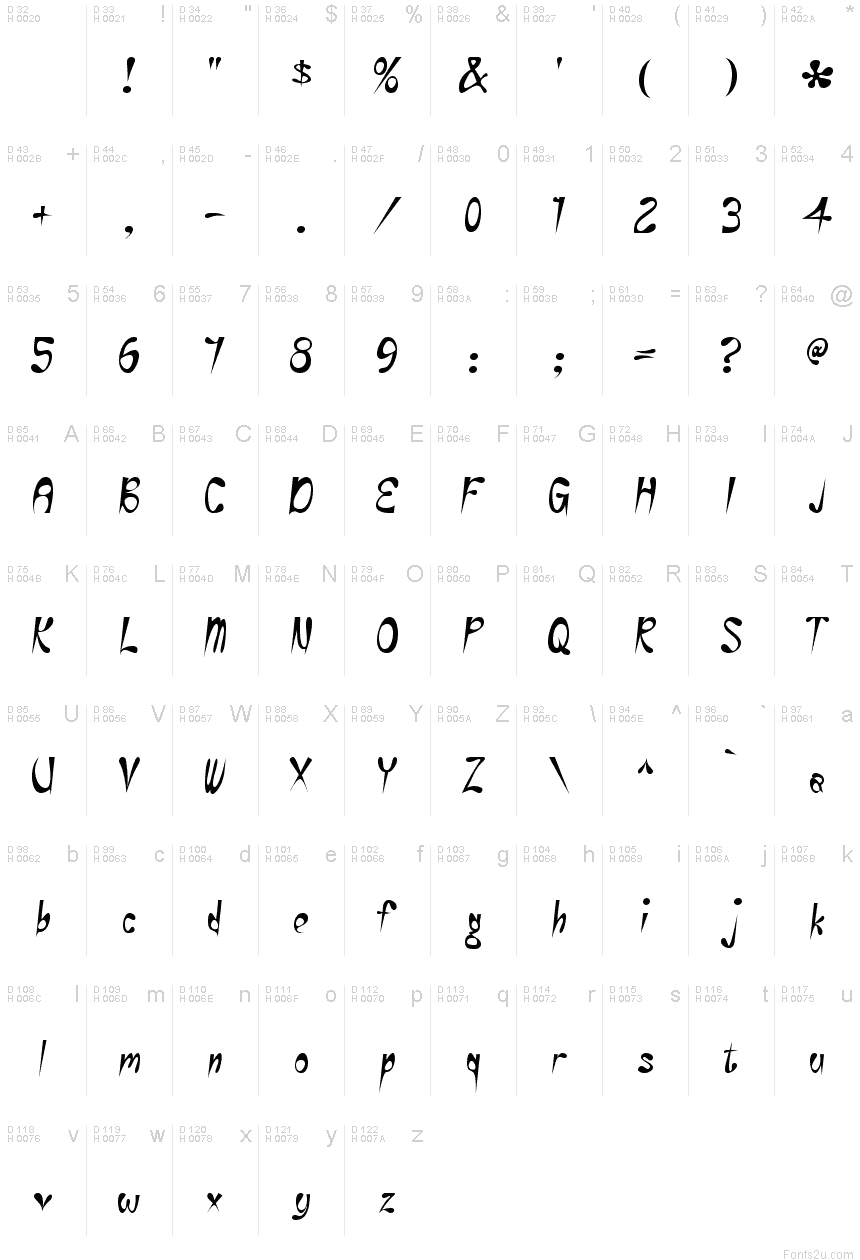
Eye Rhyme
Eye Rhyme font by Ray Larabie is a free decorative display typeface. Its tall, swooping curves and slightly off-kilter rhythm feel like quick, inky brushstrokes caught mid-motion, giving words a playful, poetic lilt. The letters twist and lean just enough to feel quirky, yet the strokes are solid and dark, so titles stay bold and readable even at a glance.
Using Eye Rhyme, you can give book covers, poetry zines, greeting cards, kids’ posters, craft packaging, and whimsical logos a lively, hand-drawn flair. This free font shines when it’s large and given room to breathe, with short phrases rather than long blocks of text. For a balanced look, pair Eye Rhyme with a simple sans serif for body copy and let its curly forms handle the headlines.